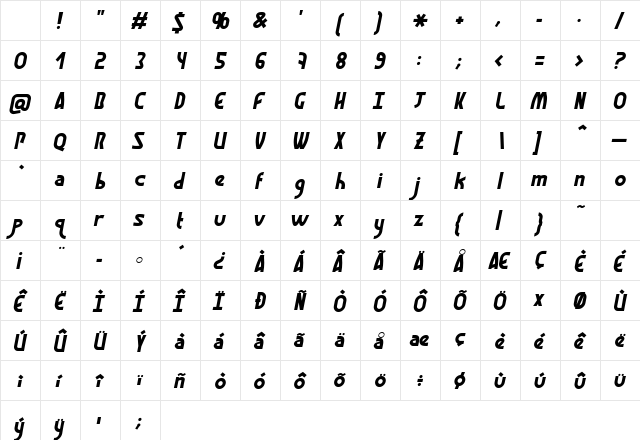
Graphisme is a composed and adaptable typeface that performs quietly and consistently across a wide range of design contexts. The slanted form adds forward momentum and visual energy.
Pro Tip: Use Graphisme for emphasis, pull quotes, and subheadings where its slanted energy can add rhythm to the layout.